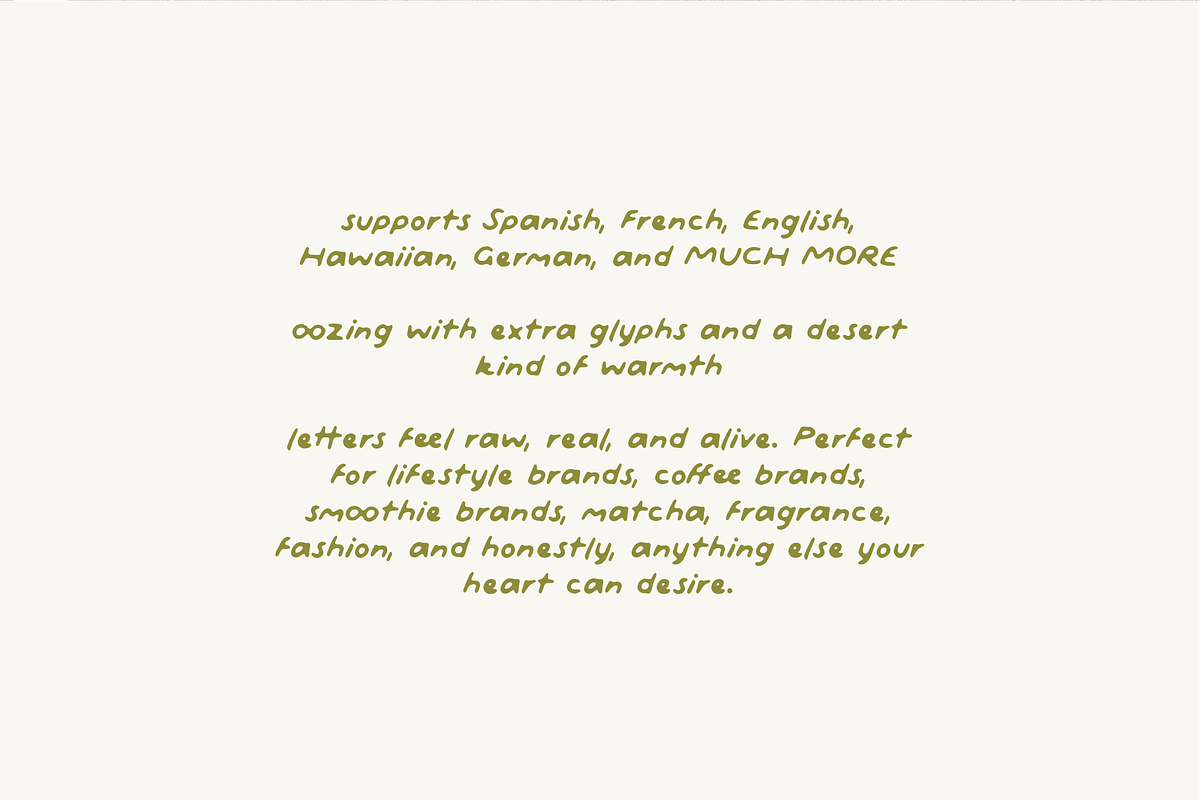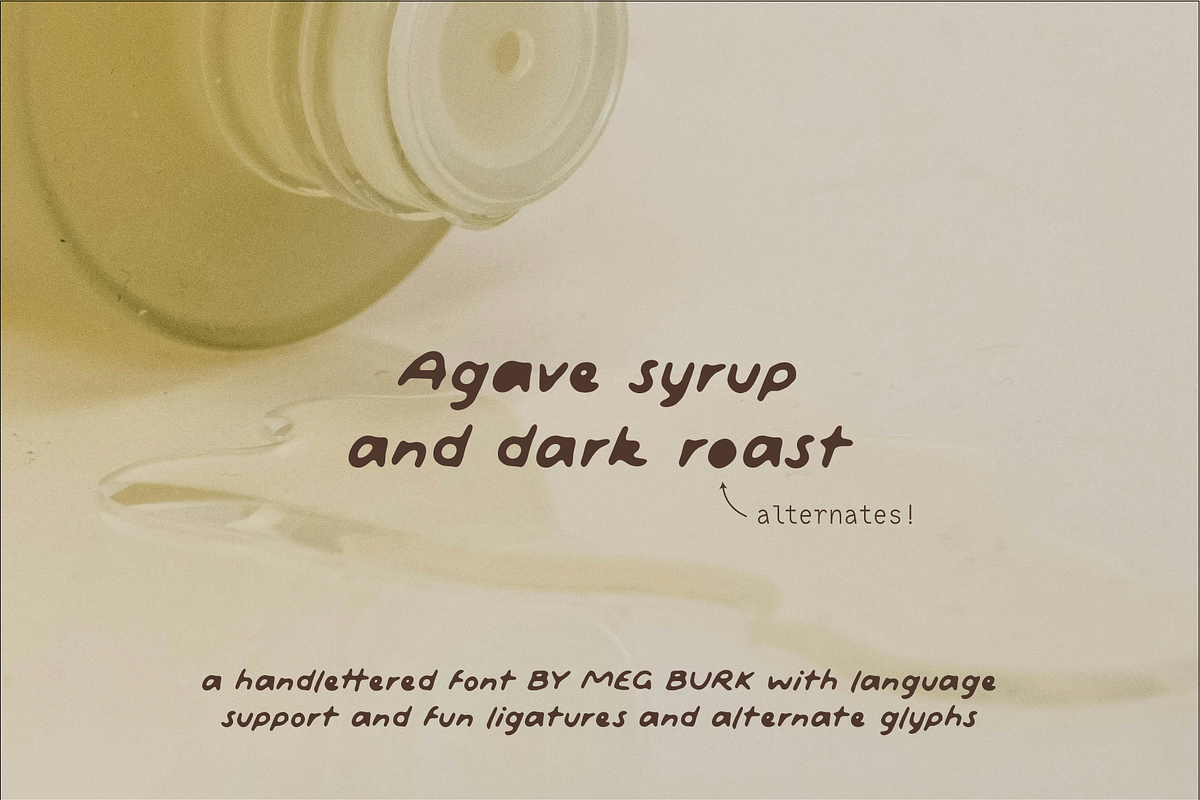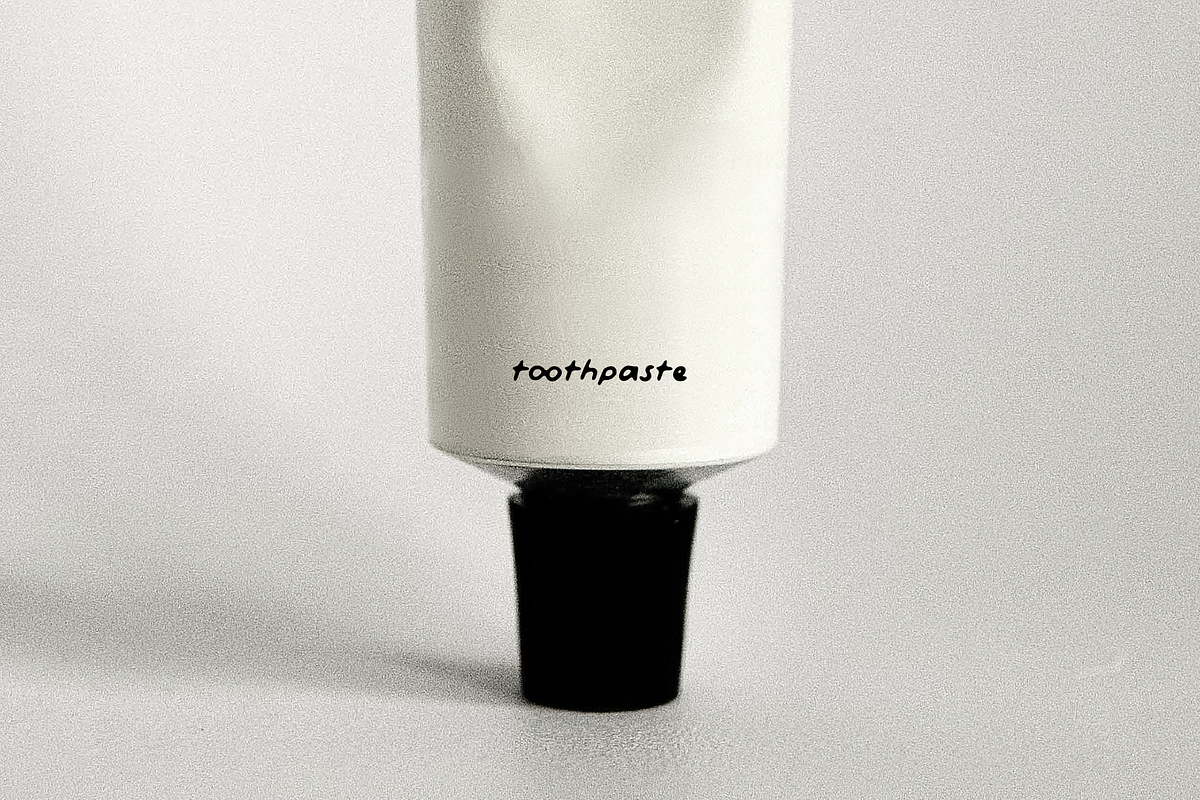
Agave Syrup - Handlettered Font
Agave Syrup is a hand lettered font that is one take on an ink bleed style. Instead of an ink trap, this font goes the other way, blending strokes and letters together as if they're viscous like agave syrup.
It's a playful and different approach to many hand lettered fonts.
Almost completely rounding out the Adobe Latin 4 character set, it's robust and capable of being an incredible logo or header font for brands in many languages.
Designed by Meg Burk in June 2026, originally for a client and now available for anyone to use.